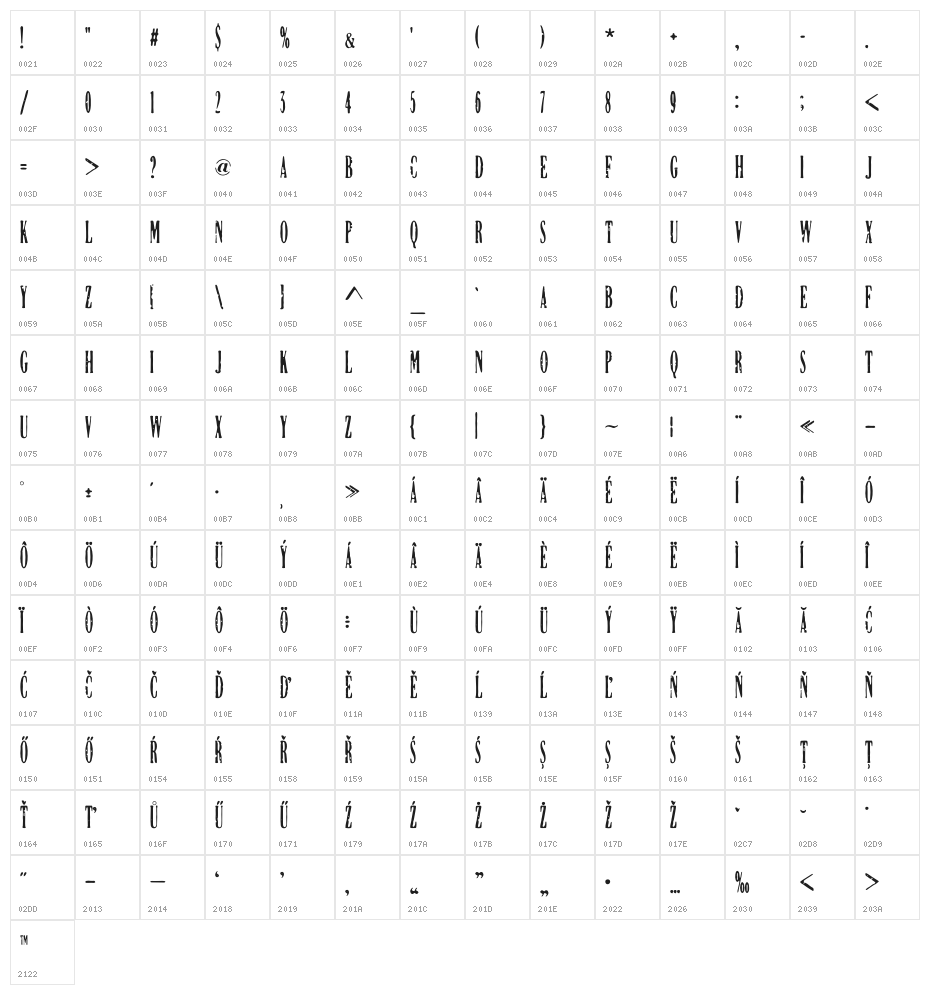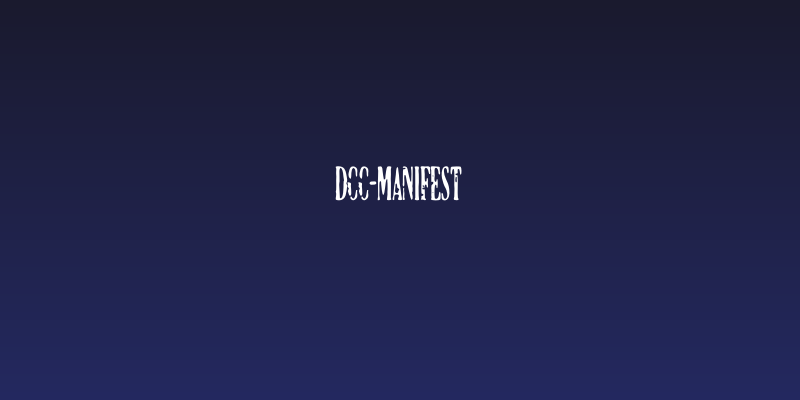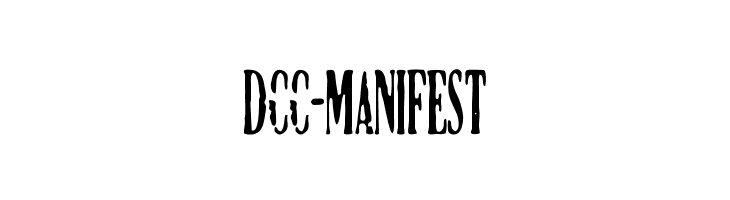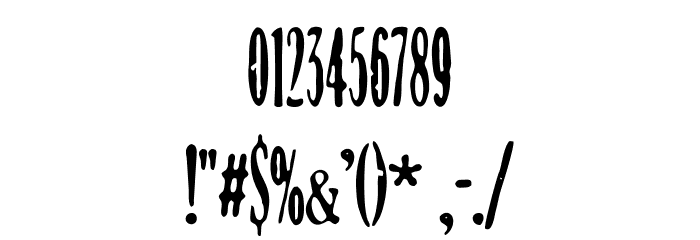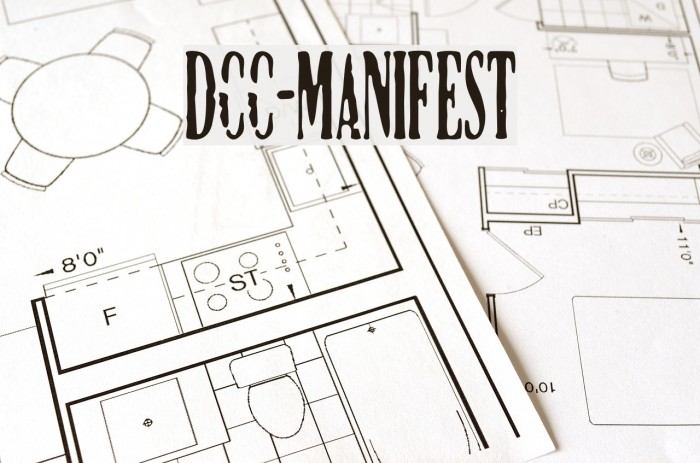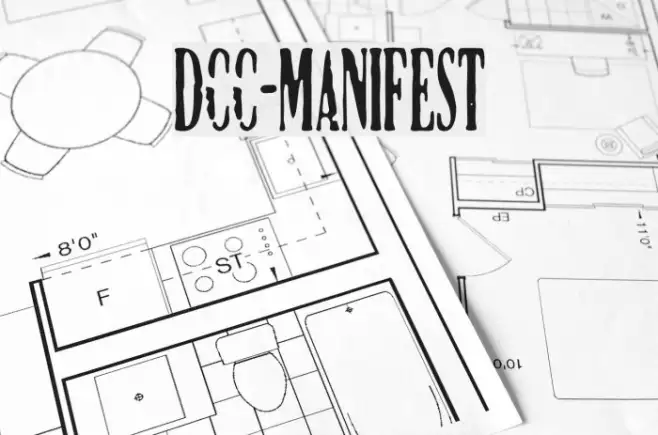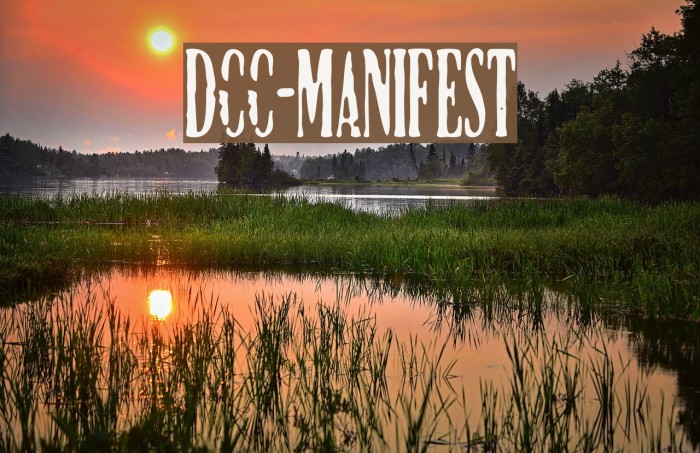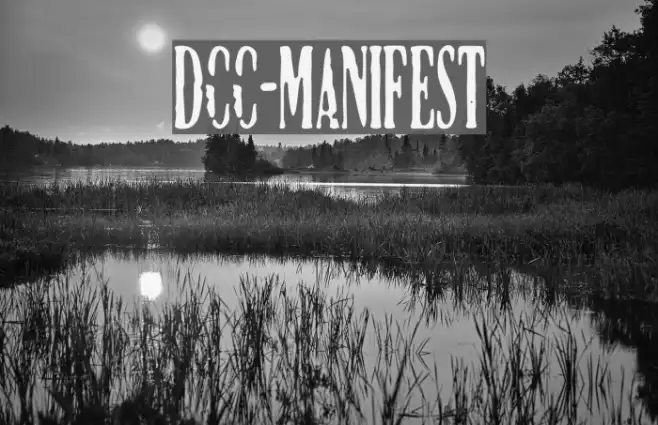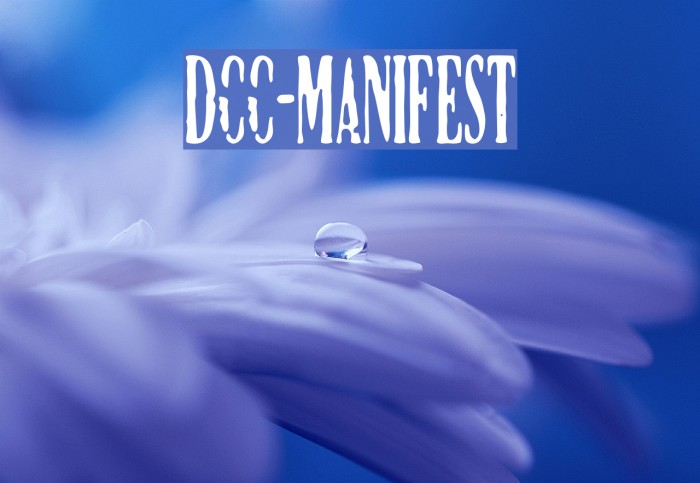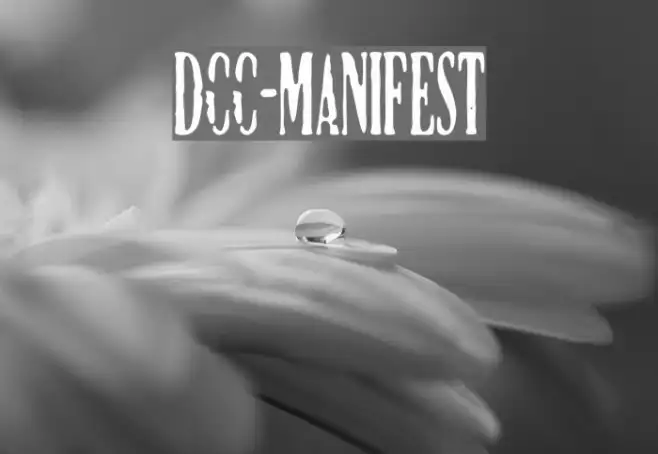
DCC-Manifest Font
DCC-Manifest Description
This font features a bold and rugged design with a distressed, vintage appearance. The characters have a slightly uneven texture, giving them a worn and weathered look. The uppercase letters are tall and narrow, with sharp serifs that add to the font's striking presence. The numbers and special characters maintain the same distressed style, ensuring consistency across all glyphs. This font's unique style makes it ideal for projects that require a bold, eye-catching typeface with a touch of nostalgia.
| Proposed Projects | Ideal for posters, branding, album covers, and vintage-themed designs. |